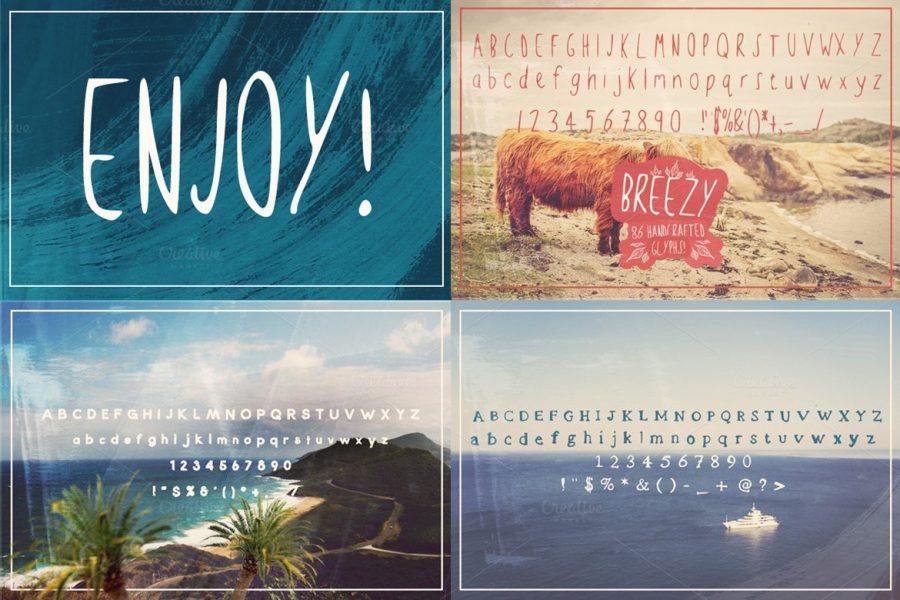
Introducing the Layerform Handsketched Font Bundle!
Layerform Design Co is proud to present yet another juicy design bundle! This time in the form of 3 of our Top Selling Handcrafted Fonts.
This font bundle includes a nice variety of Typeface styles, including handsketched display fonts and grungy/rustic Sans Serif Fonts. These would be perfect on any creative project big or small.
Breezy Handsketched Typeface